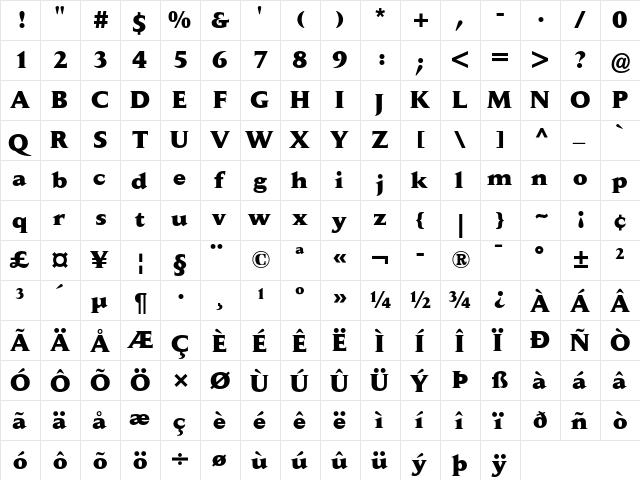
Jaeger Daily News Extra Bold
Design Context for Jaeger Daily News Typeface
Jaeger Daily News is a composed and adaptable typeface that performs quietly and consistently across a wide range of design contexts. The heavy weight commands attention and anchors typographic hierarchies.
Pro Tip: Pair Jaeger Daily News with a font of contrasting weight or personality to build a more expressive typographic hierarchy.